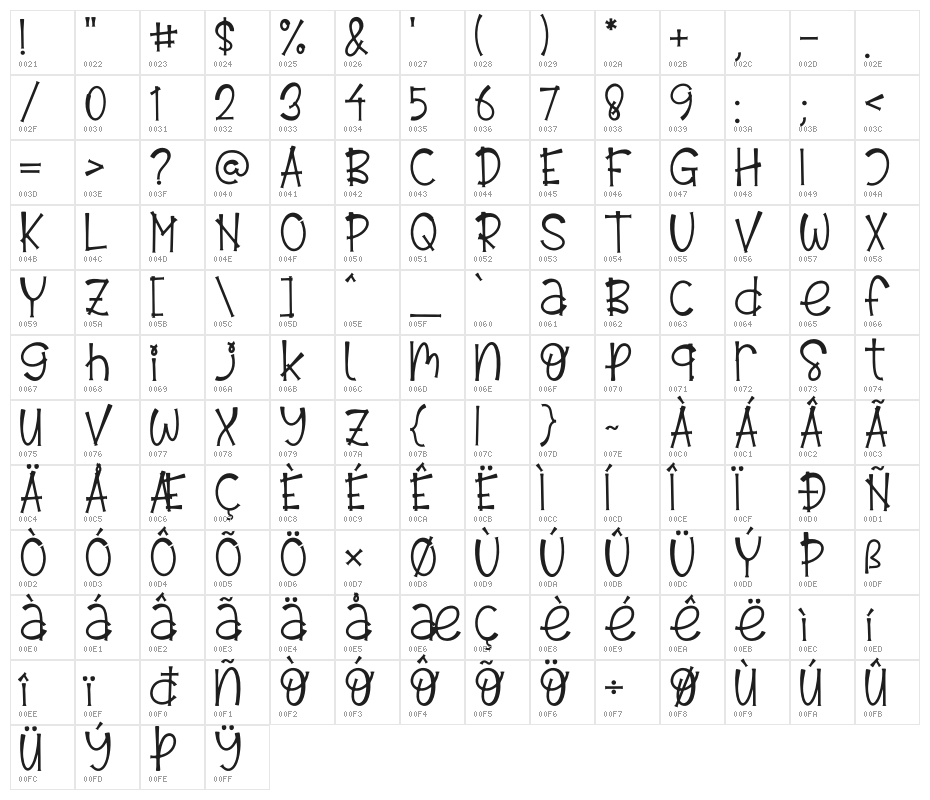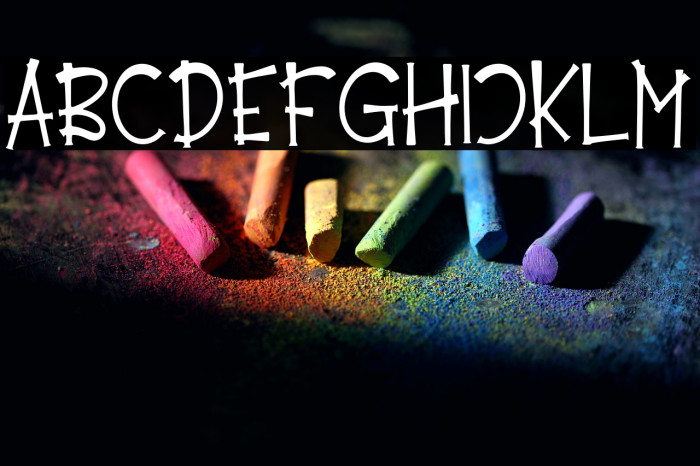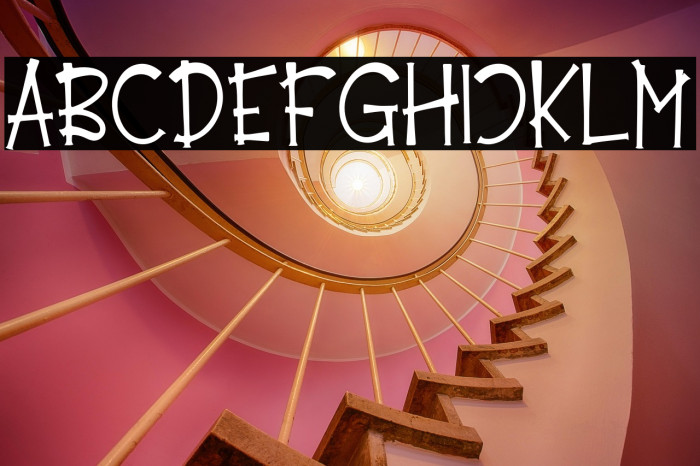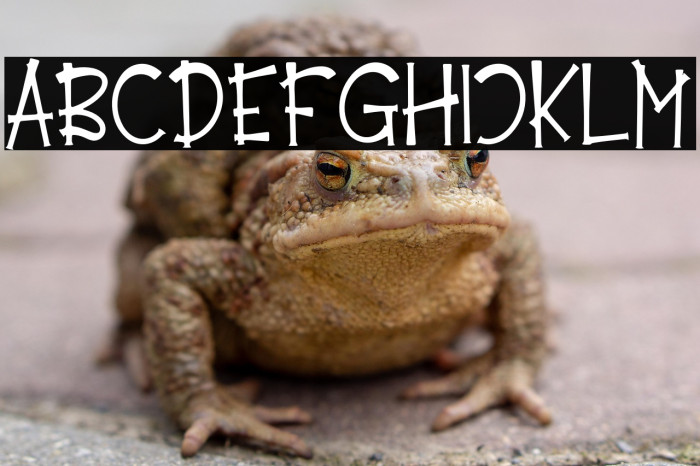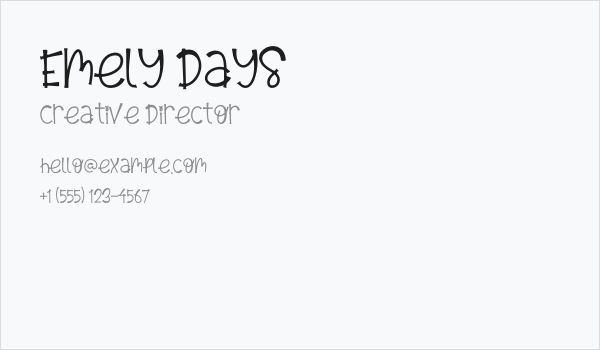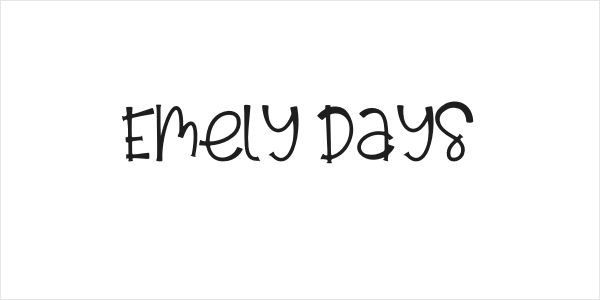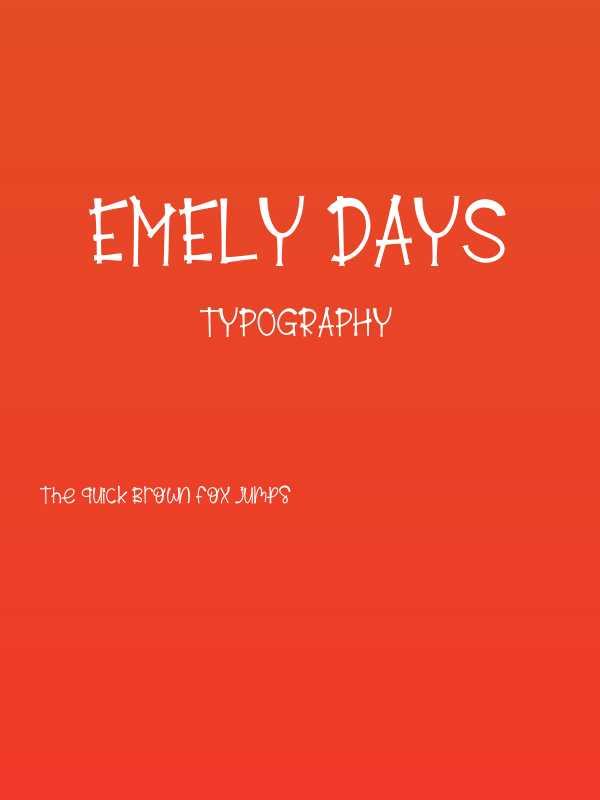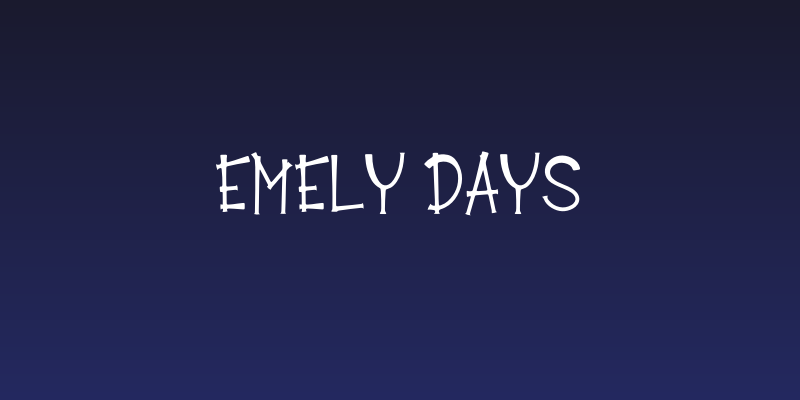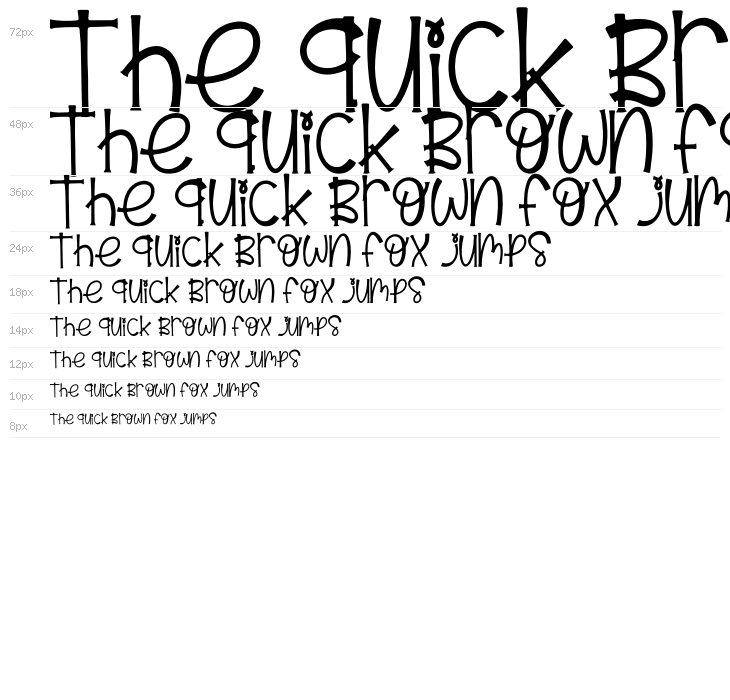
Emely Days Font
Emely Days Description
This font features a playful and whimsical style with a hand-drawn appearance. The letters are characterized by their uneven strokes and quirky, irregular shapes, giving it a casual and friendly feel. The uppercase and lowercase letters maintain a consistent style, with some letters having unique embellishments that add to the font's charm. The numerals and special characters follow the same playful design, making it suitable for creative and informal projects.
| Proposed Projects | Ideal for children's books, greeting cards, playful branding, and casual invitations. |